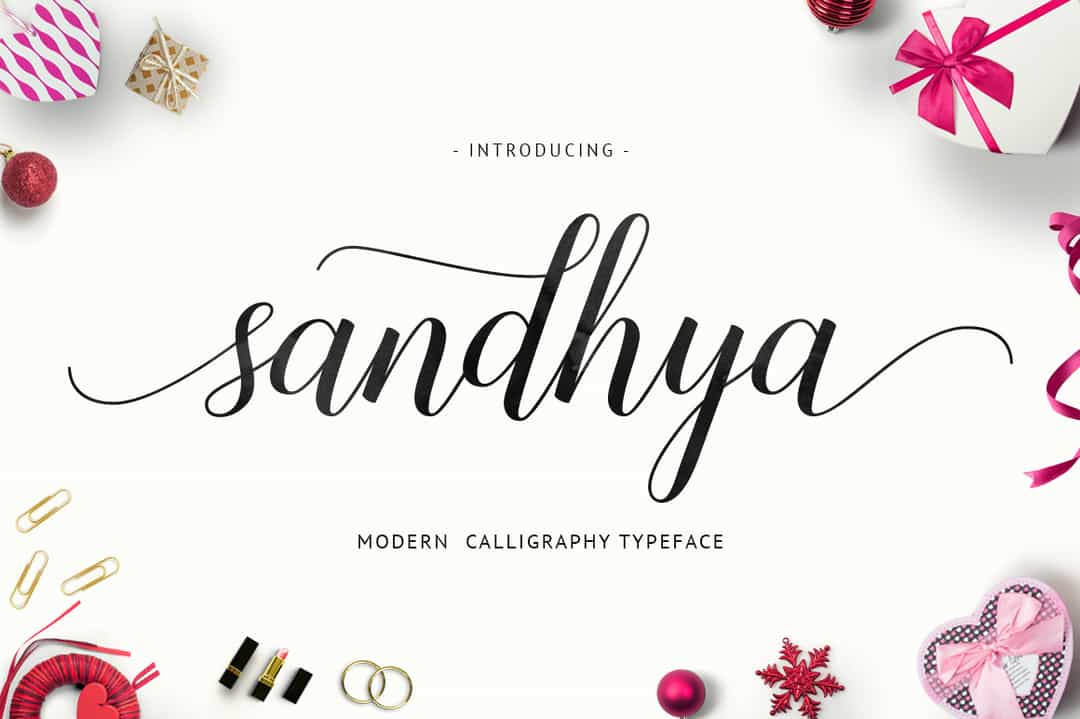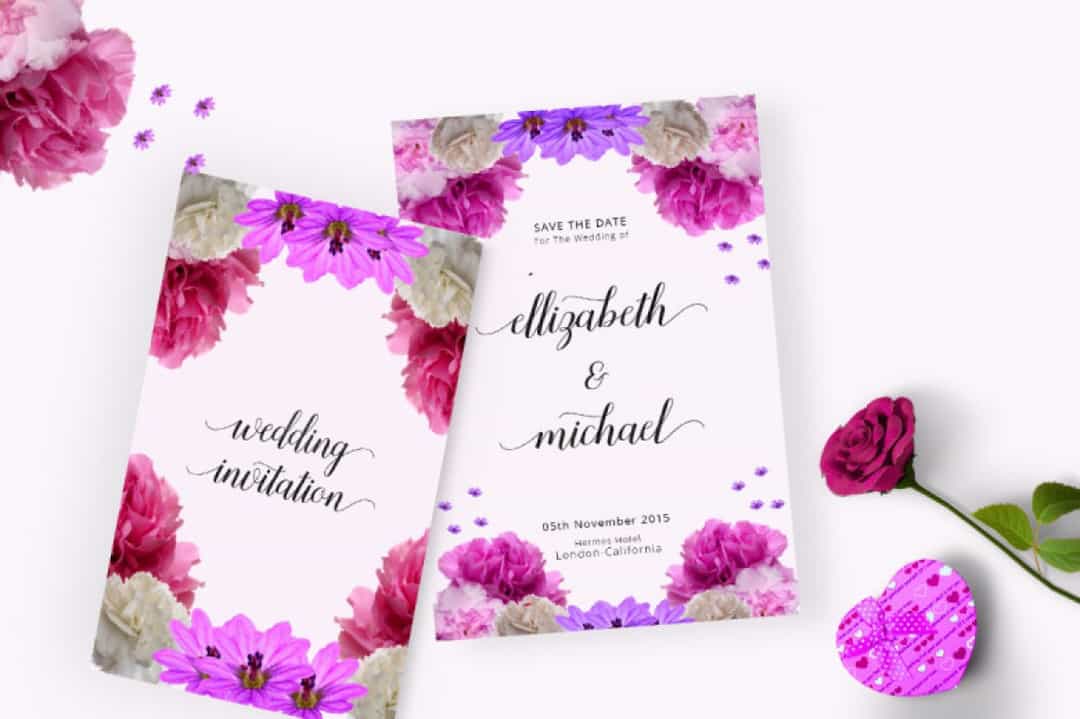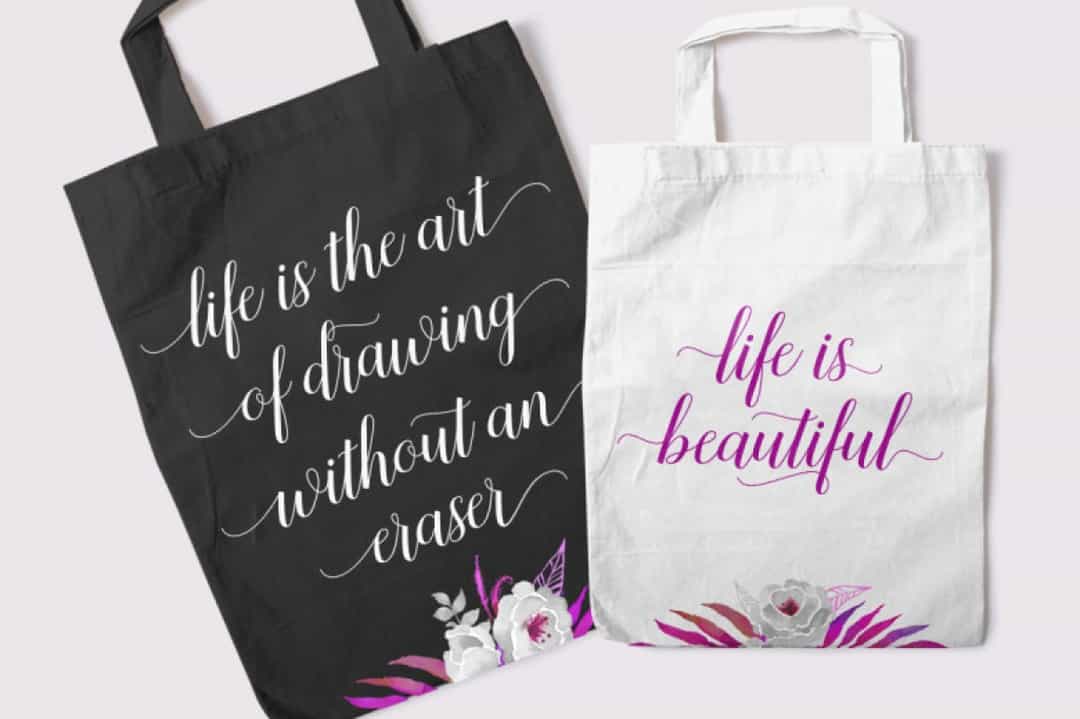
Sandhya script is a beautiful modern font with calligraphic look and tastefully designed ornaments in characters, and swinging baseline, used widely in invitation cards, logotypes, business cards, posters, quotes, greeting cards and prints.